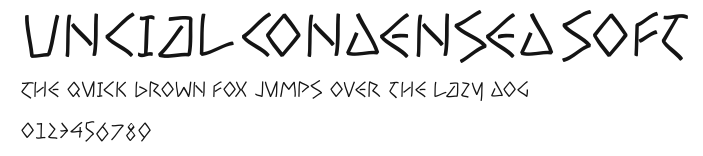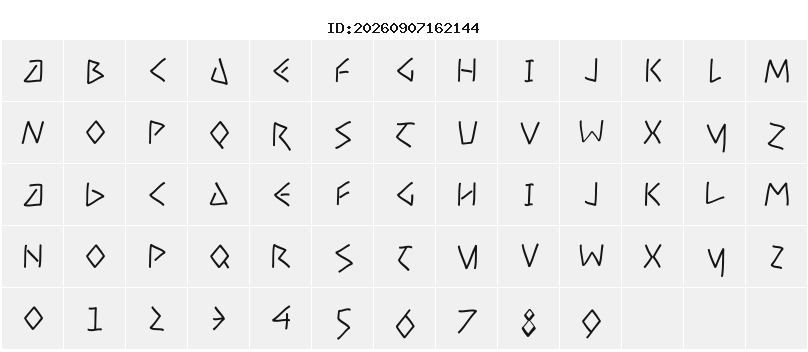
UncialCondensedSoft Preview
• Font Name: UncialCondensedSoft
• Font ID: UncialCondensedSoft-Medium
• Full Font Name: UncialCondensedSoft-Medium
• PostScript Name: UncialCondensedSoft-Medium
• Character Count: 208
About UncialCondensedSoft.ttf
UncialCondensedSoft.ttf is a modern, elegant sans-serif font designed for ultimate readability and visual harmony. Perfect for branding, headlines, web design, and print materials.